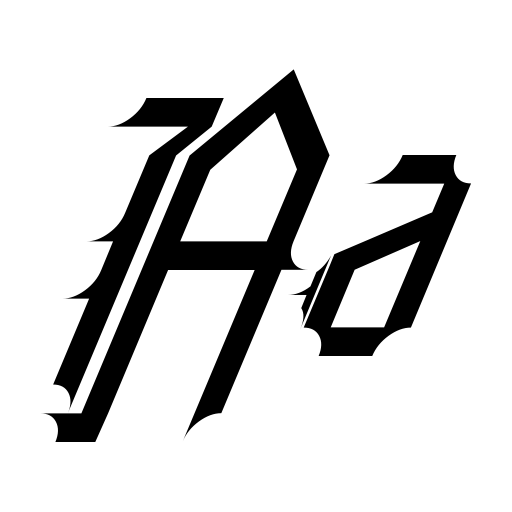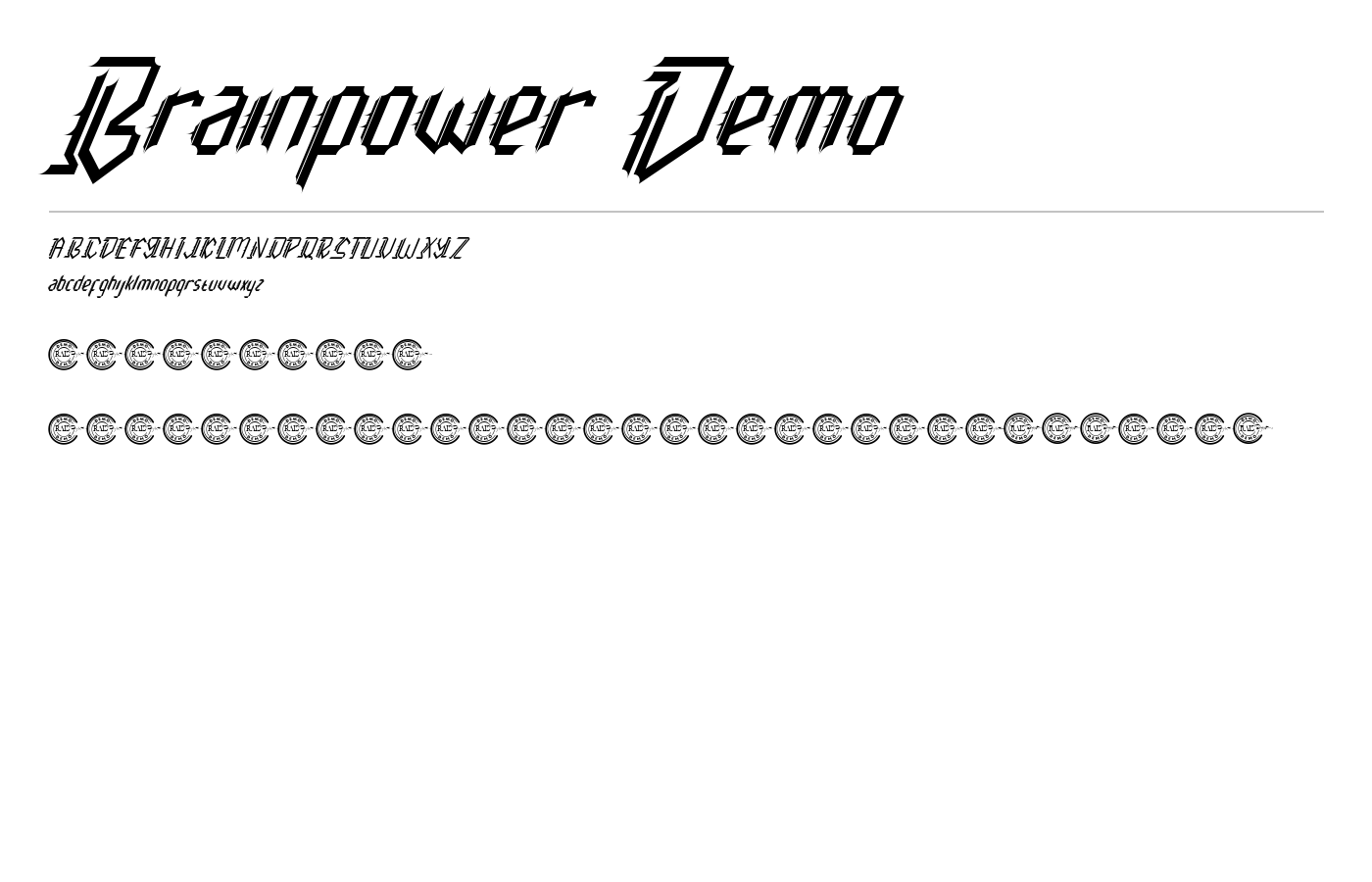
Brainpower Demo is a distinctive blackletter-inspired display font with a sharp, angular style that conveys a bold and edgy personality. Its narrow, condensed letterforms and high contrast strokes give it a dynamic, futuristic feel, making it ideal for striking headlines, logos, or branding that seek a strong, unconventional look. This font works best in creative projects where impact and uniqueness are key, rather than in long passages of text due to its intricate detailing.
Brainpower Demo Font
About Brainpower Demo Font
| Font family | Brainpower Demo Font |